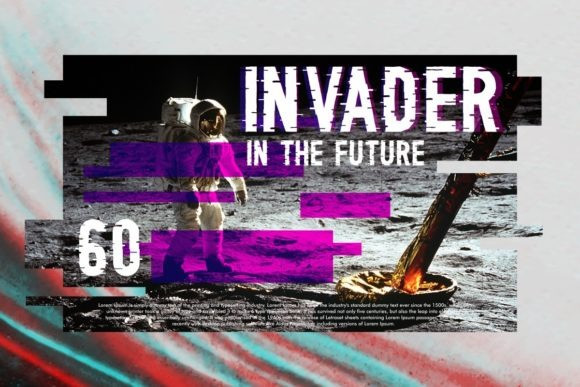
Glitching Font
Glitching Font is a cool, bold and assertive display font. It looks both unique and interesting and it will most certainly enhance the power of each of your creations.